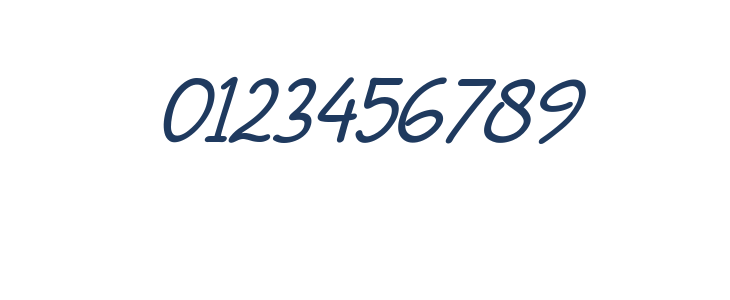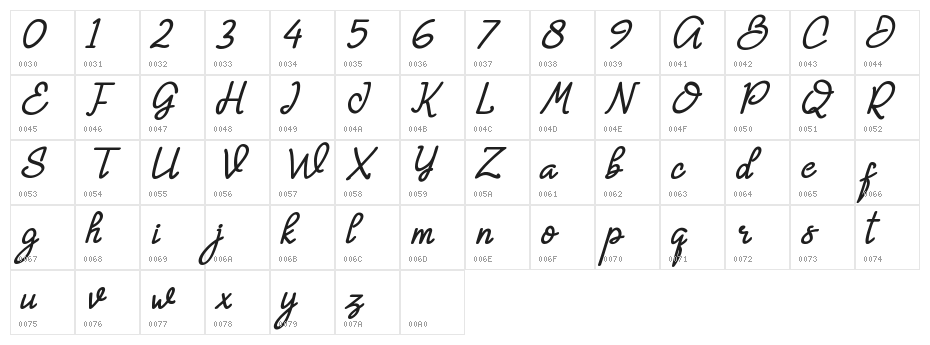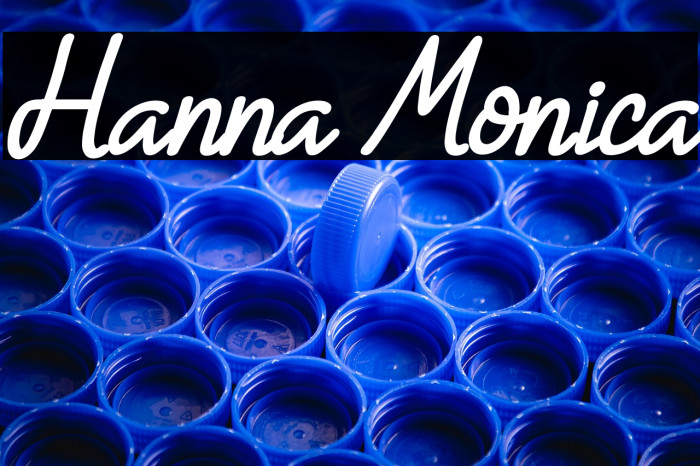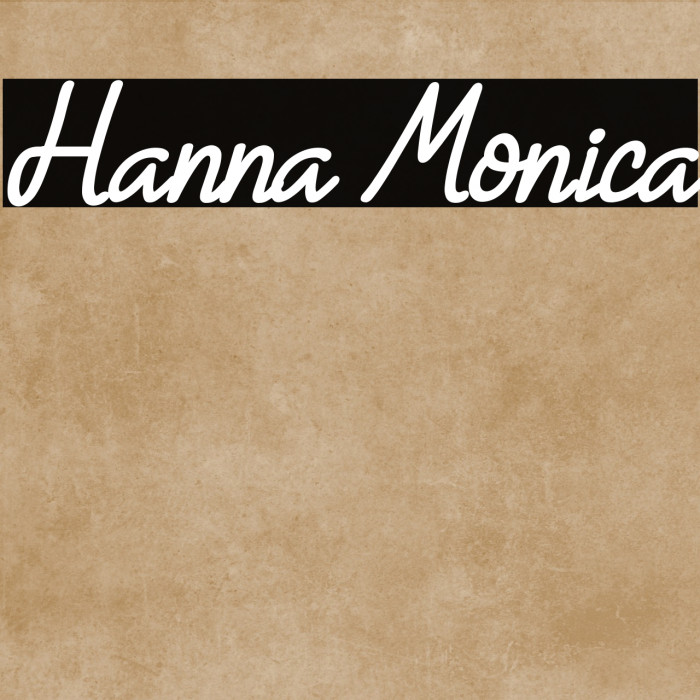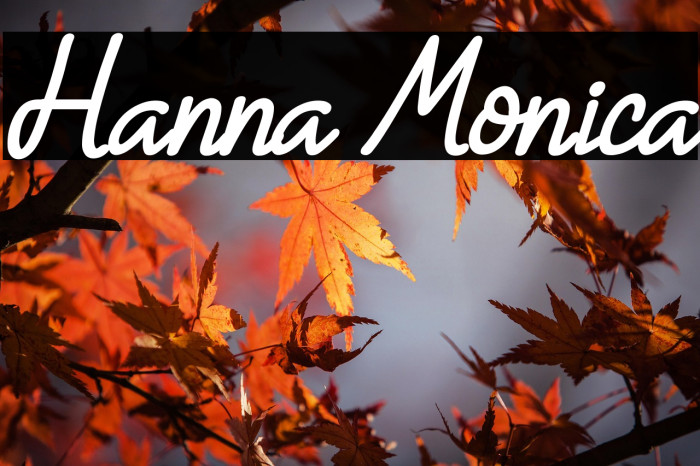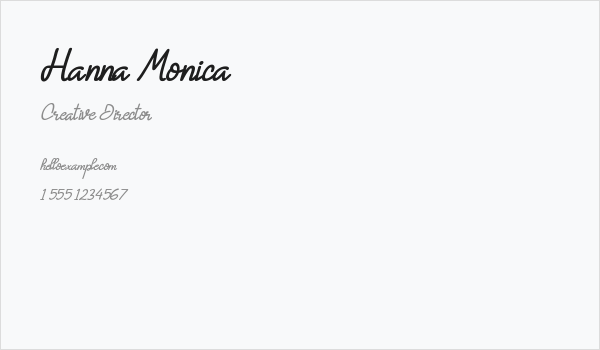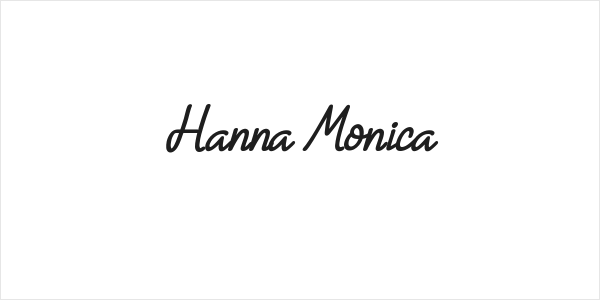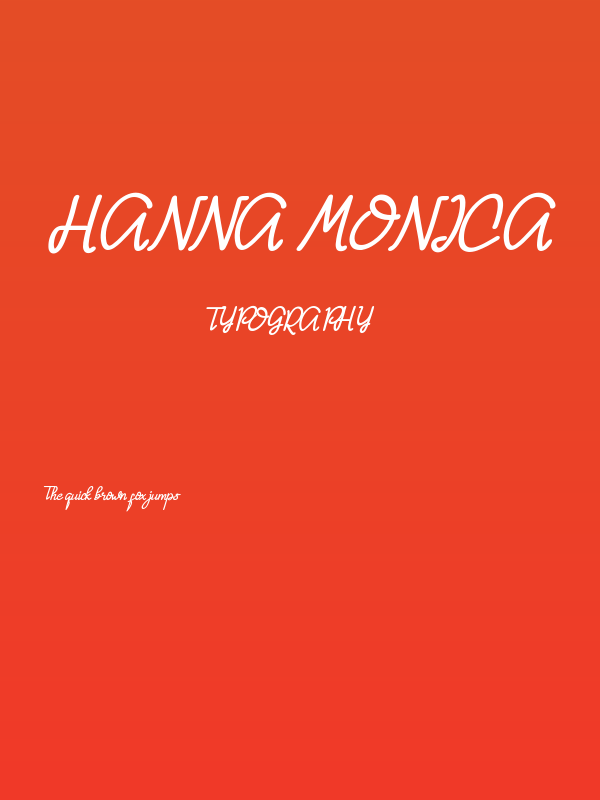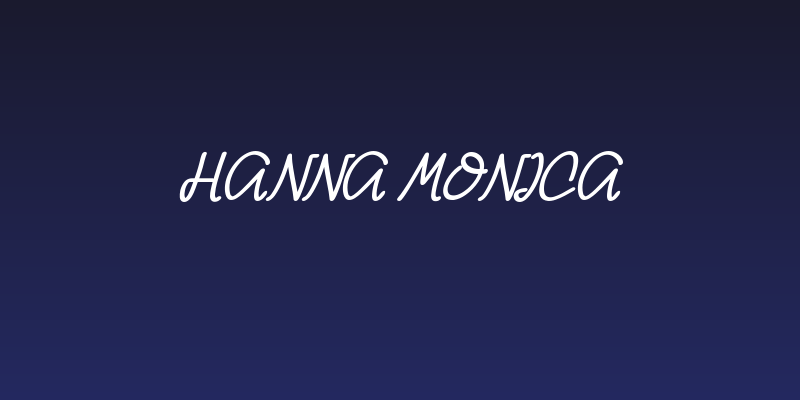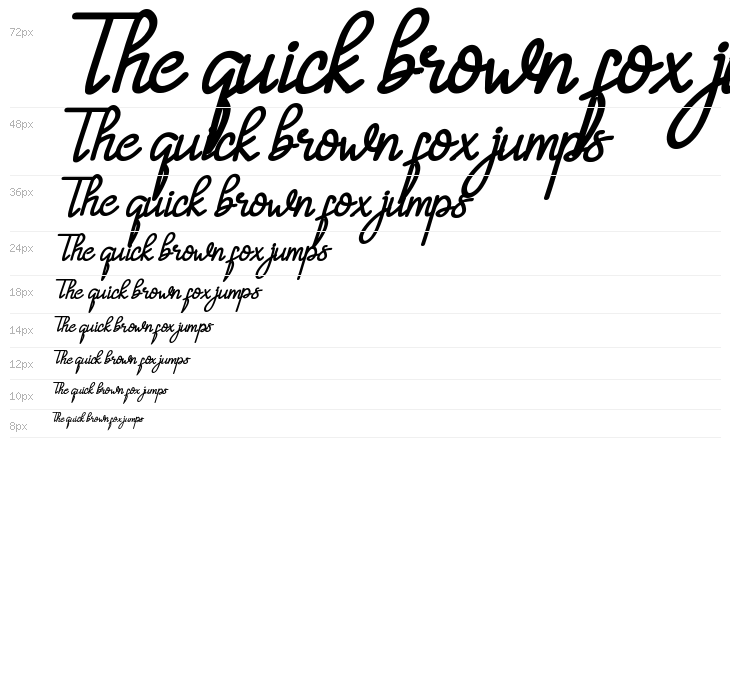
Hanna Monica Font
Hanna Monica Description
This font exhibits a lively and dynamic script style, characterized by its fluid and continuous strokes that mimic natural handwriting. The letters are connected, creating a seamless flow that enhances its cursive appeal. The uppercase letters are elegantly looped, while the lowercase letters maintain a consistent rhythm and balance. The numerals are bold and clear, matching the overall aesthetic of the alphabet. Special characters are thoughtfully integrated, maintaining the font's cohesive look. This font's playful yet sophisticated style makes it versatile for various design applications.